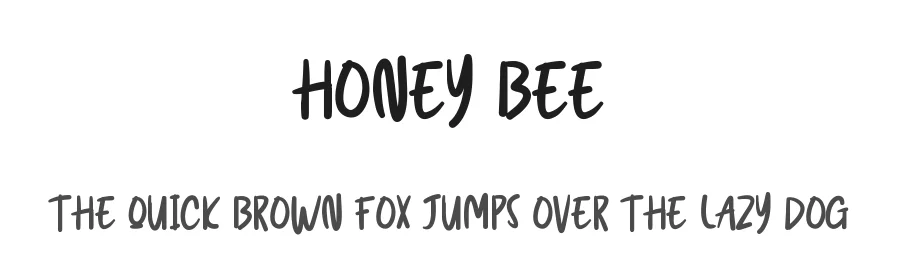
About Myhero Font
Myhero Specifications
| Font Family | Myhero |
| Full Name | Myhero |
| Glyph Count | 136 glyphs |
Myhero supports 209 languages.
Myhero Font is a script font that shines as a display or heading face. Pair it with a clean sans-serif or serif font for body text β the contrast creates a clear hierarchy while the two styles stay balanced and easy to read.